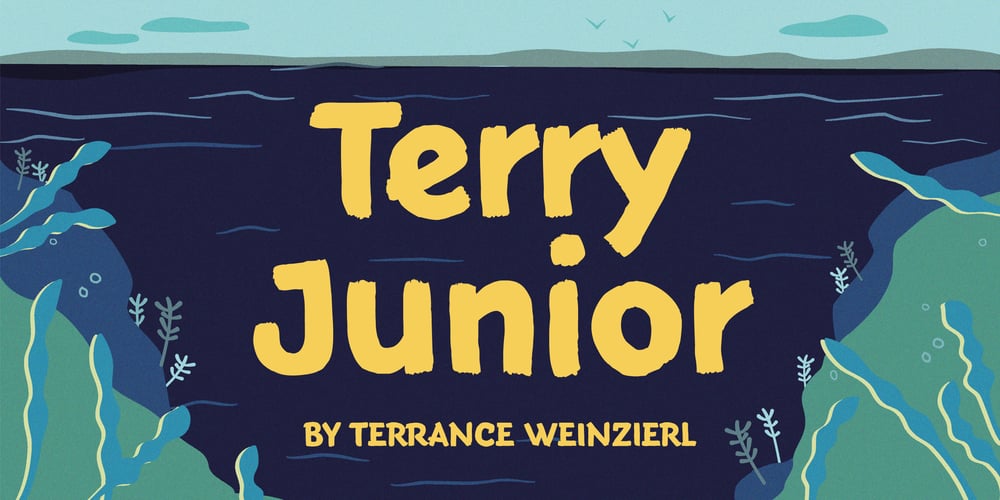
Terry Junior Font Family was designed by Terrance Weinzierl and published by Monotype. Terry Junior contains 5 styles and family package options. Terrance Weinzierl’s Terry Junior typeface is a perfectly imperfect design – one that retains the marks of the brush used to create it and harks back to the craft required to hand make letterforms. Originally drawn during a Monotype Font Marathon, Weinzierl later refined the typeface digitally – adding an Inline version and designing alternates that replicate the irregularity of real-life brush scripts. “It has a natural, cheery and bold appearance,” says designer Terrance Weinzierl. “It’s young, but not wild. Painted, but not sloppy. A sign painter’s apprentice, perhaps.” Terry Junior is an obvious choice for designers and brands communicating with younger audiences, but would also work well on book covers, packaging, and in digital environments that need a little bit of extra playfulness. The family includes five fonts, including an Inline version.